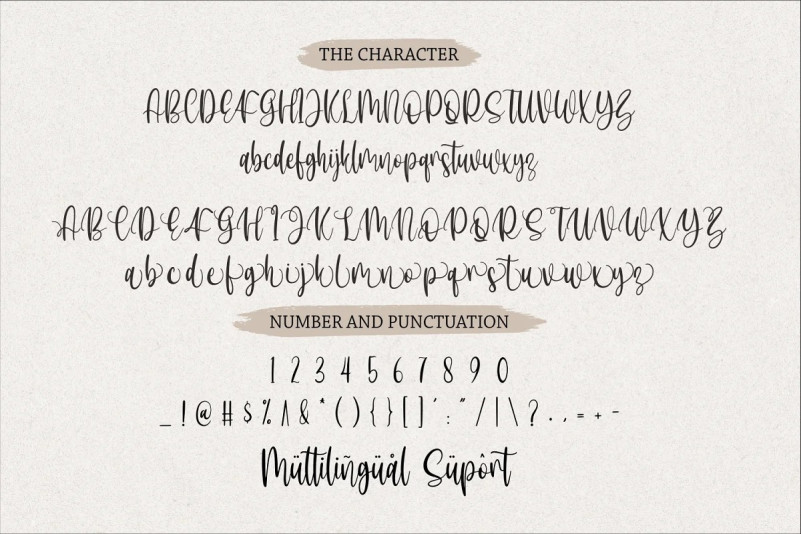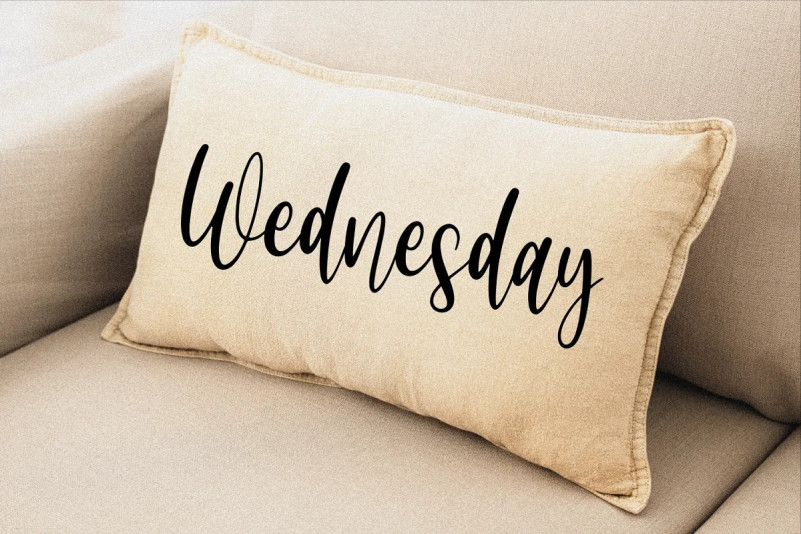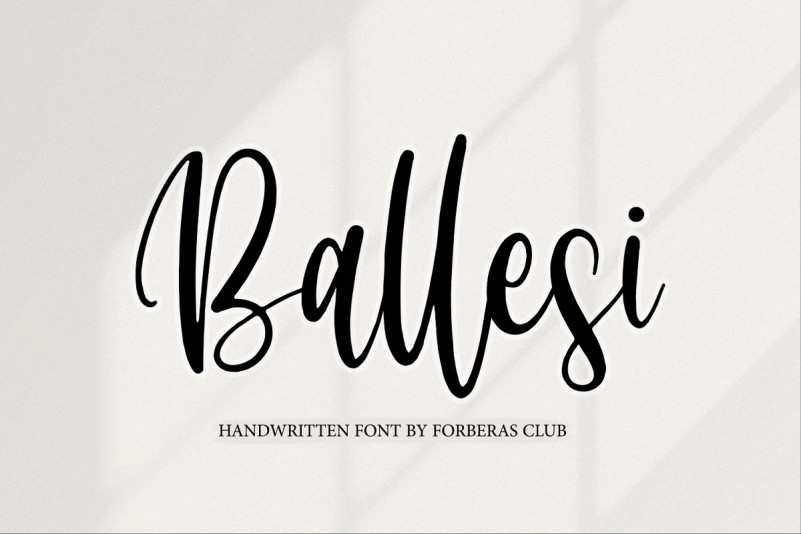
Ballessi Font
Ballessi Script Font is a Handwritten Script font that will make your designs look classic, Farmhouse, Boho, and Feminine. It is a great font for events, Wedding Project, fashion, apparel projects, signature, album covers, logos, branding, magazines, social media posts, advertisements, but it also works great for other projects. Add it to your fonts’ library, and it will enhance your creativity!